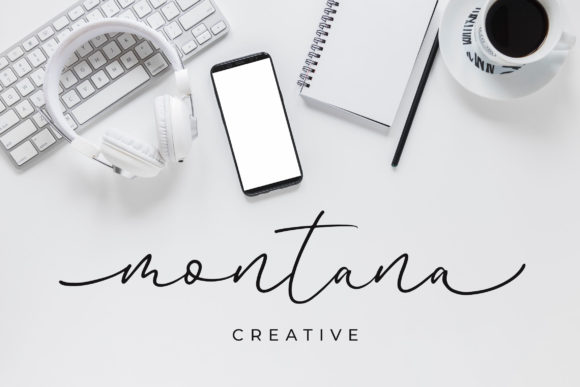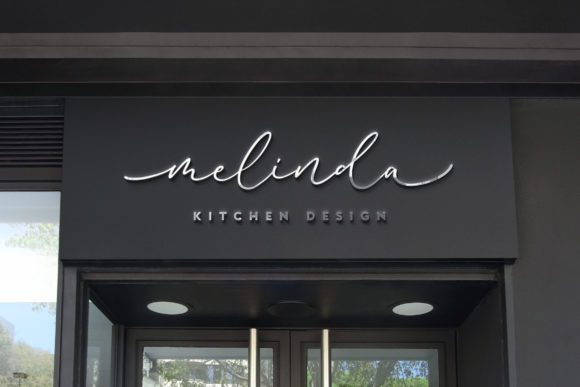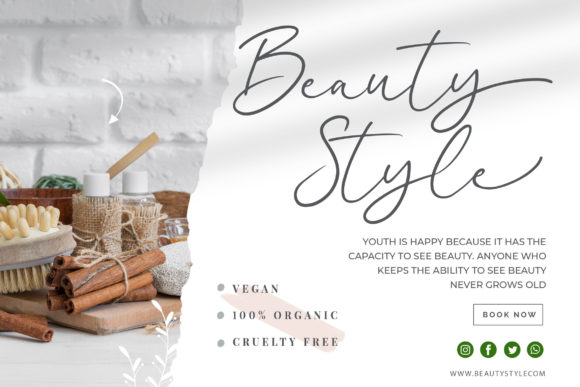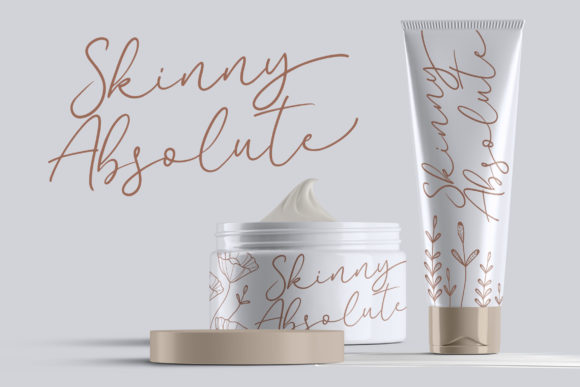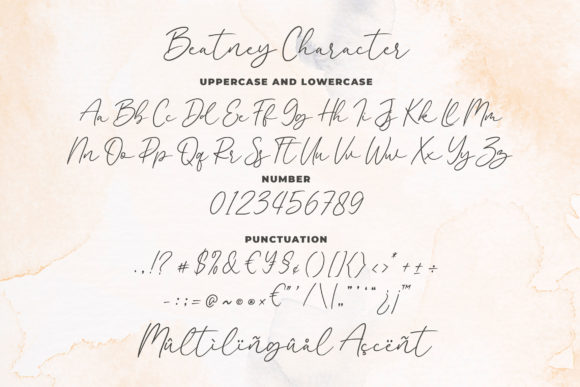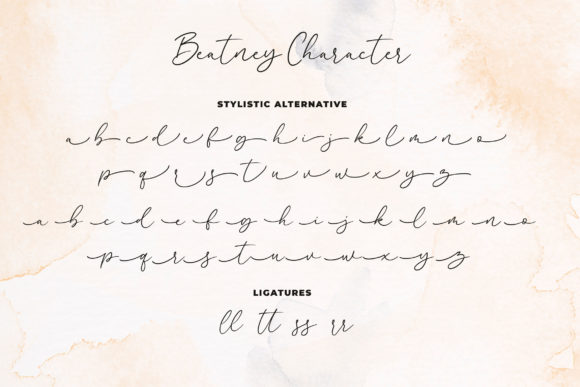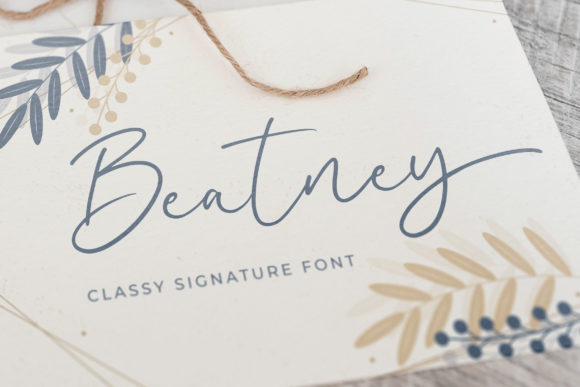
Introducing Beatney Font: The Elegant and Dainty Handwritten Font for Crafty Ideas
Are you a designer or crafter looking for a unique and elegant font to elevate your creative projects? Look no further than Beatney Font, a beautiful handwritten font that features sweet and delicate swashes. With its original look and versatility, Beatney Font is perfect for a wide range of crafty ideas, from letterheads and titles to stationery.
The Characteristics of Beatney Font
Beatney Font is an elegant and dainty handwritten font that boasts a range of characteristics that make it stand out from other fonts. Its sweet and delicate swashes add a touch of sophistication and whimsy, making it perfect for projects that require a personal and creative touch. The font is also PUA encoded, which means that you can access all of the glyphs and swashes with ease, giving you complete control over the look and feel of your project.
What Makes Beatney Font So Versatile?
Beatney Font is an incredibly versatile font that can be used for a wide range of crafty ideas. Its elegant and dainty design makes it perfect for:
- Letterheads: Add a touch of sophistication to your business correspondence with Beatney Font.
- Titles: Use Beatney Font to create eye-catching titles for your blog posts, articles, or social media updates.
- Stationery: Create beautiful and unique stationery, such as greeting cards, invitations, and thank-you cards, with Beatney Font.
- Crafting projects: Use Beatney Font to add a personal touch to your crafting projects, such as scrapbooking, journaling, or card making.
The Benefits of Using Beatney Font
There are many benefits to using Beatney Font in your creative projects. Some of the most significant advantages include:
- Unique and original look: Beatney Font has a distinctive and original look that will set your projects apart from others.
- Elegant and dainty design: The font’s elegant and dainty design makes it perfect for projects that require a touch of sophistication and whimsy.
- PUA encoded: The font’s PUA encoding makes it easy to access all of the glyphs and swashes, giving you complete control over the look and feel of your project.
- Versatile: Beatney Font can be used for a wide range of crafty ideas, making it a great addition to any designer’s or crafter’s toolkit.
- Experiment with different glyphs and swashes: Use the font’s PUA encoding to access all of the glyphs and swashes and experiment with different combinations to find the look that works best for your project.
Beatney Font is a beautiful and versatile handwritten font that is perfect for designers and crafters looking to add a touch of elegance and whimsy to their creative projects. With its original look, sweet and delicate swashes, and PUA encoding, Beatney Font is a great addition to any designer’s or crafter’s toolkit. Whether you’re looking to create letterheads, titles, stationery, or crafting projects, Beatney Font is the perfect choice.